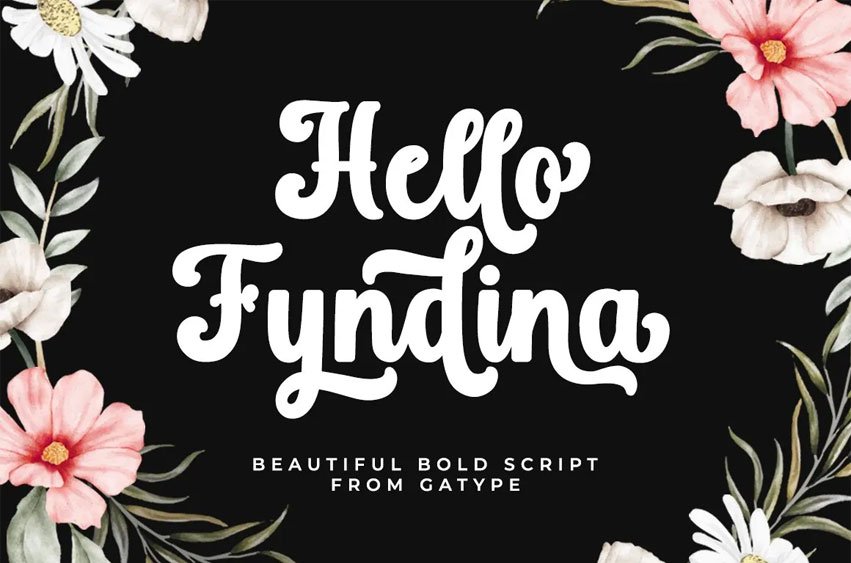
Hello Fyndina Font is an exquisite beautiful bold script font, masterfully designed to become a true favorite. It maintains its classy calligraphic influences while feeling contemporary and fresh. Fall in love with it and bring your projects to the highest levels!